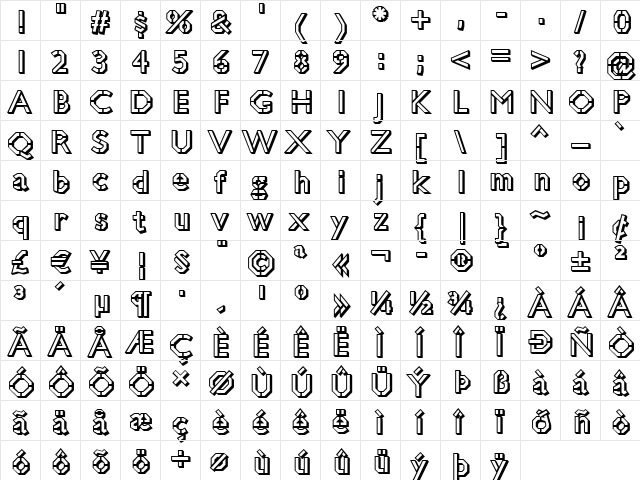
Jillican War 3D Regular
Design Context for Jillican War 3D Typeface
Jillican War 3D is a composed and adaptable typeface that performs quietly and consistently across a wide range of design contexts.
Pro Tip: Use Jillican War 3D in both headline and body roles to test its range before committing to a single application.